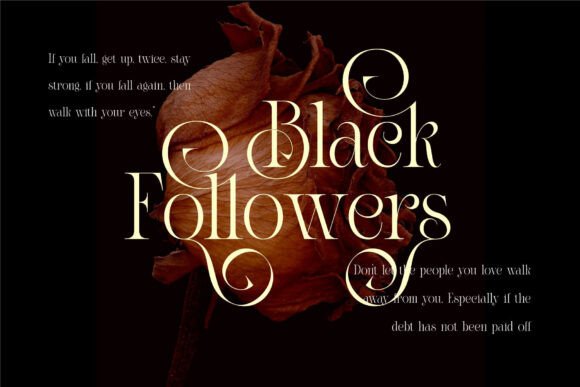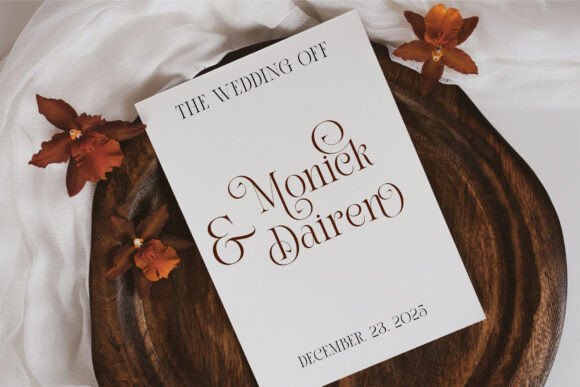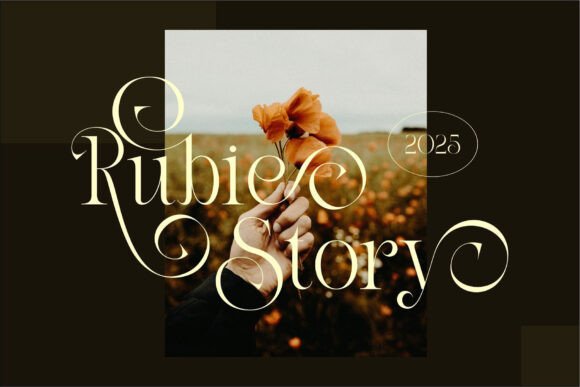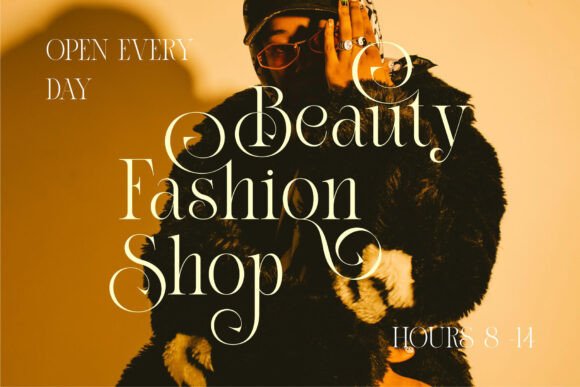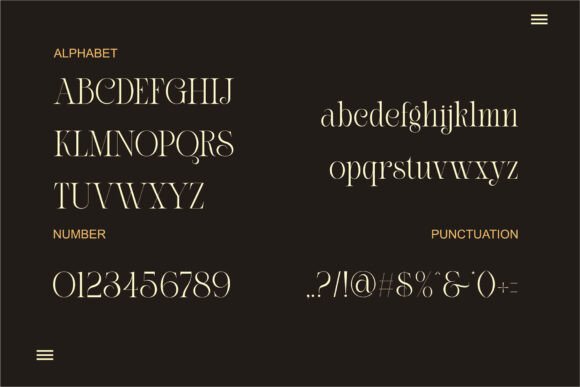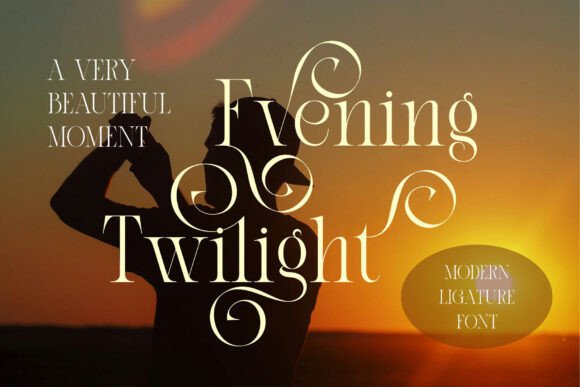
Ducke Bume Font: Elevate Your Design with Elegance
Are you a designer or crafter looking for a font that exudes elegance and sophistication? Look no further than the Ducke Bume Font, an elegant serif typeface inspired by the famous minimalist logo. This versatile font is perfect for a wide range of design purposes, from templates and brochures to logos, invitations, and more.
The Inspiration Behind Ducke Bume Font
The Ducke Bume Font draws inspiration from the minimalist logo design movement, which emphasizes simplicity and clean lines. The result is a font that is both refined and understated, making it perfect for designs that require a touch of elegance. The font’s creator aimed to craft a typeface that would be both beautiful and functional, and the end result is a true masterpiece.
Key Features of Ducke Bume Font
The Ducke Bume Font boasts a range of features that make it an ideal choice for designers and crafters. Some of its key features include:
- Elegant Serif Design: The font’s serif design adds a touch of sophistication to any design, making it perfect for high-end branding and advertising.
- Versatile: The Ducke Bume Font is highly versatile, making it suitable for a wide range of design purposes, from logos and invitations to brochures and videos.
- Clean Lines: The font’s clean lines and minimalist design make it easy to read and visually appealing.
- High-Quality: The font is crafted with high-quality design principles in mind, ensuring that it looks great in any design.
The Ducke Bume Font is perfect for designers and crafters who want to elevate their designs with a touch of elegance. Whether you’re working on a branding project, creating a logo, or designing an invitation, this font is sure to impress. Its versatility and clean design make it an ideal choice for a wide range of design purposes, including:
- Template Design: Create stunning templates for brochures, flyers, and more with the Ducke Bume Font.
- Branding and Advertising: Use the font to create high-end branding and advertising materials that exude elegance and sophistication.
- Logo Design: Create a lasting impression with a logo designed using the Ducke Bume Font.
- Invitation Design: Design beautiful invitations for special occasions, such as weddings and parties.
- Beauty Design: Use the font to create stunning beauty designs, such as makeup tutorials and product packaging.
Why Choose Ducke Bume Font?
So why choose the Ducke Bume Font over other fonts on the market? Here are just a few reasons:
- Unique Design: The Ducke Bume Font boasts a unique design that sets it apart from other fonts.
- Elegance: The font exudes elegance and sophistication, making it perfect for high-end designs.
- Versatility: The font is highly versatile, making it suitable for a wide range of design purposes.
- Easy to Read: The font’s clean design makes it easy to read, even at small sizes.
In conclusion, the Ducke Bume Font is an elegant serif typeface that is perfect for designers and crafters looking to elevate their designs with a touch of sophistication. Its versatility, clean design, and elegance make it an ideal choice for a wide range of design purposes. Whether you’re working on a branding project, creating a logo, or designing an invitation, the Ducke Bume Font is sure to impress.